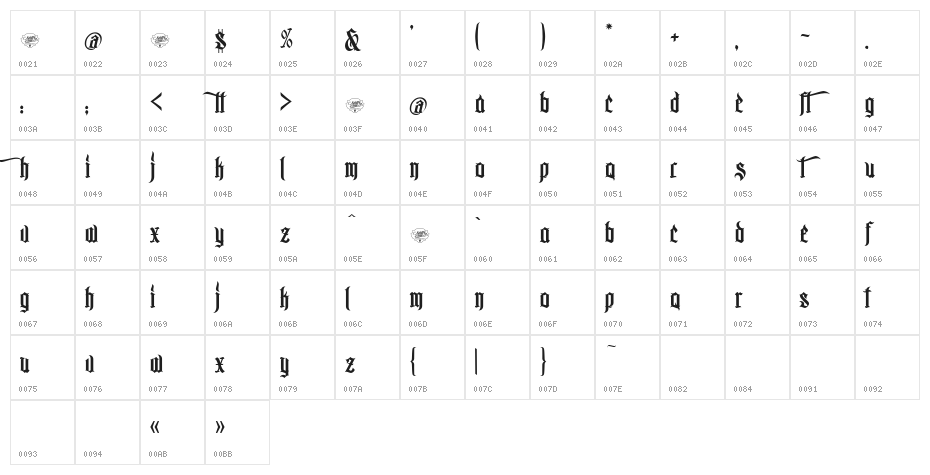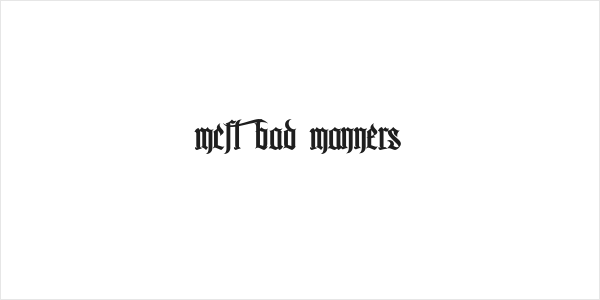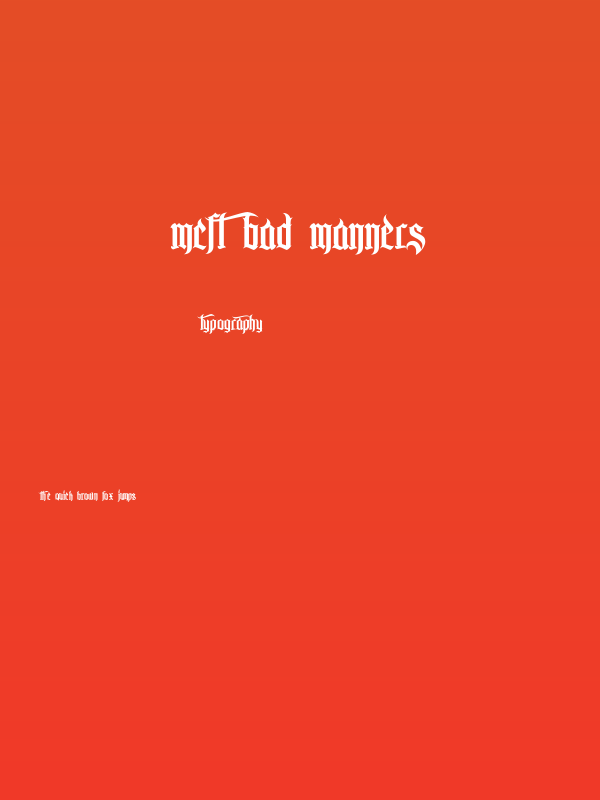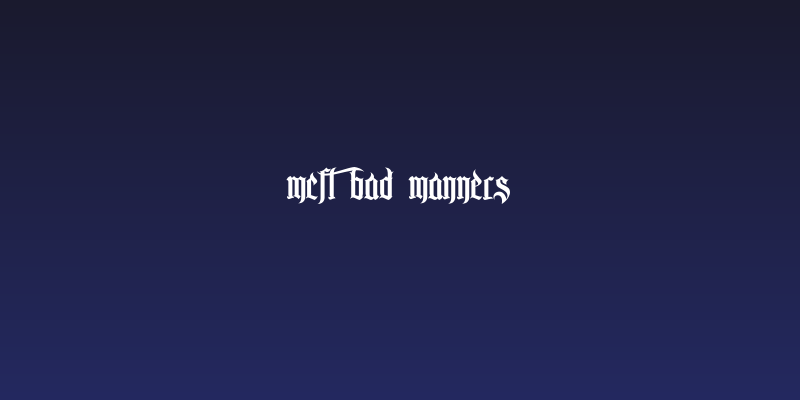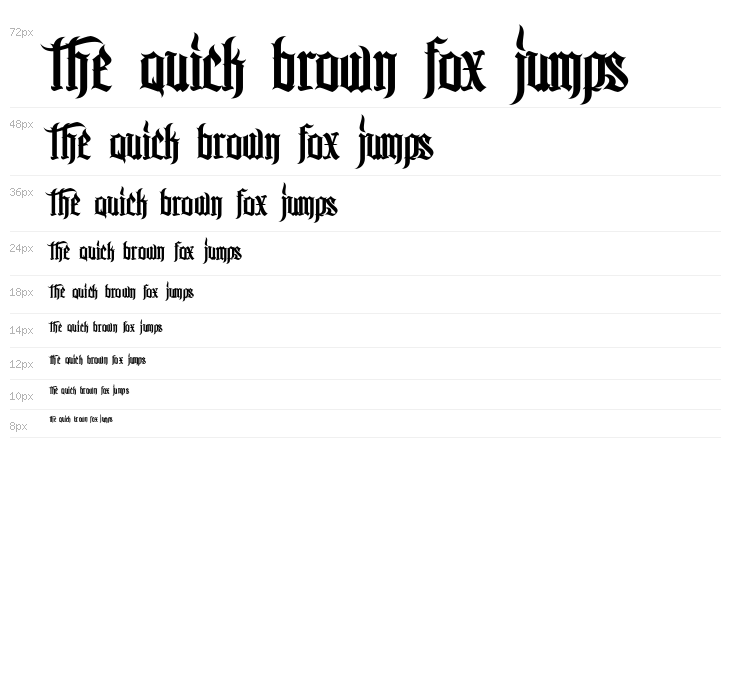
MCF bad manners Font
MCF bad manners Description
This font features a bold and intricate design reminiscent of traditional Blackletter styles. The characters are highly decorative with sharp, angular lines and elaborate serifs, giving it a gothic and medieval appearance. The uppercase and lowercase letters maintain a consistent style, with a strong emphasis on vertical strokes and pointed terminals. The numerals and special characters are equally ornate, fitting seamlessly with the overall aesthetic. This font is ideal for projects that require a dramatic and historical touch, such as event posters, book covers, or branding for products that want to convey a sense of tradition and craftsmanship.
| Overall Style | Gothic, Medieval, Decorative |
| Use Case | Headlines, Logos, Decorative text |
| Proposed Projects | Ideal for event posters, book covers, branding, and any project needing a historical or dramatic flair. |